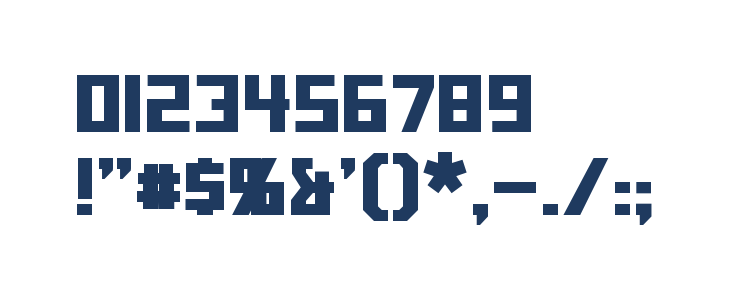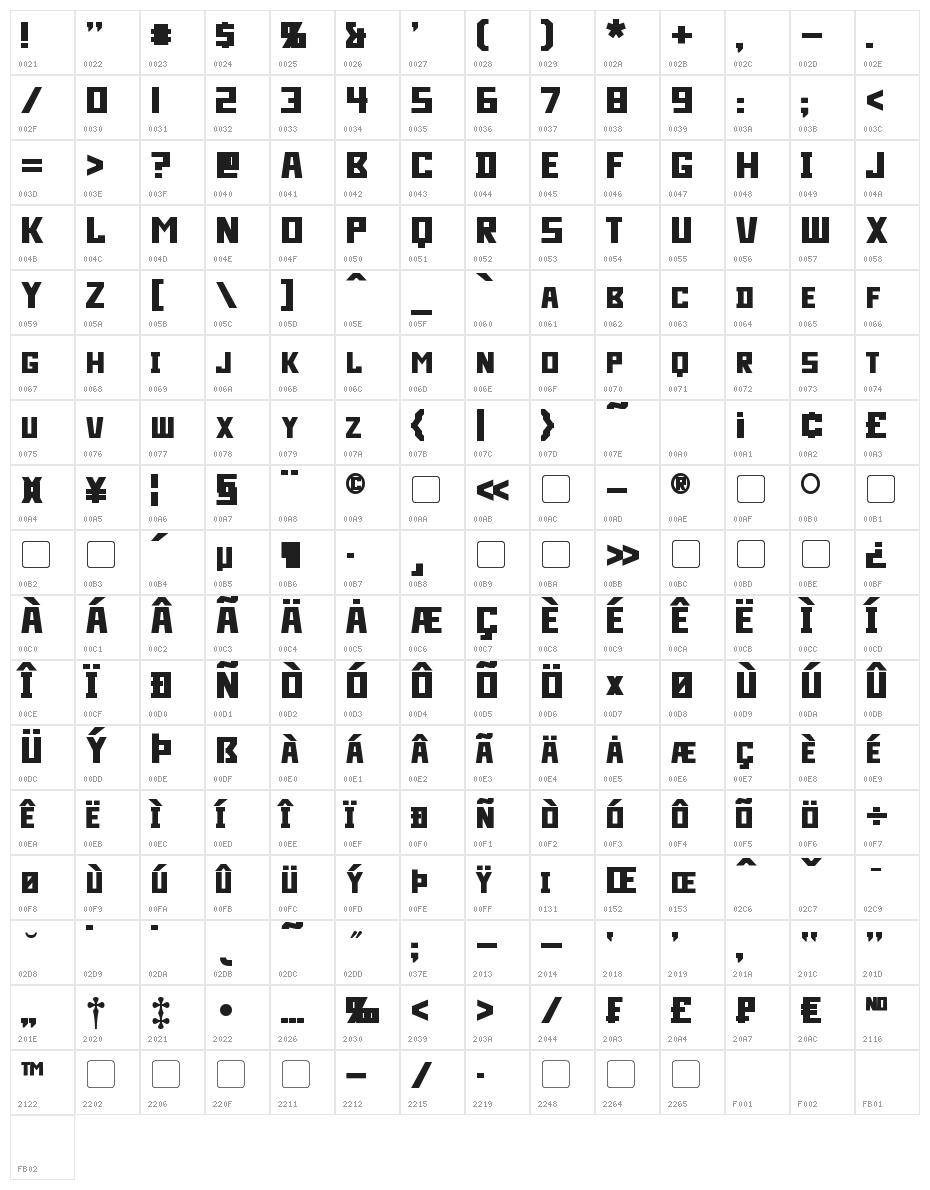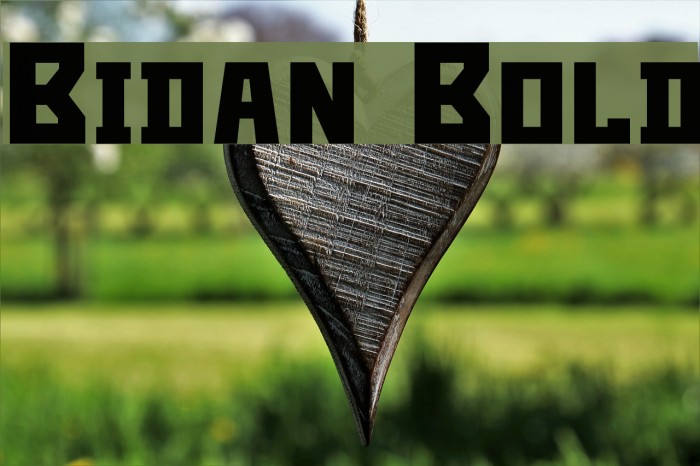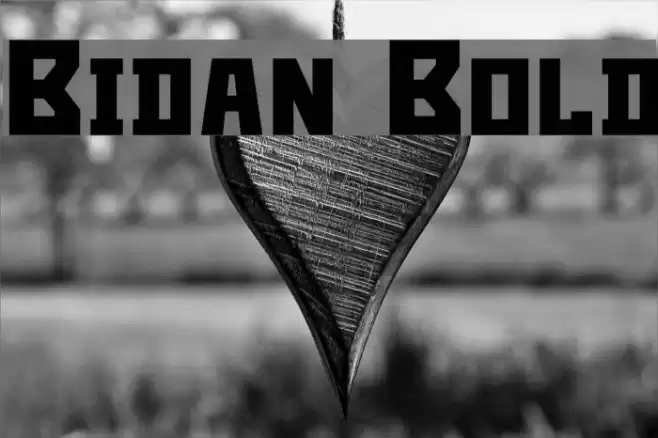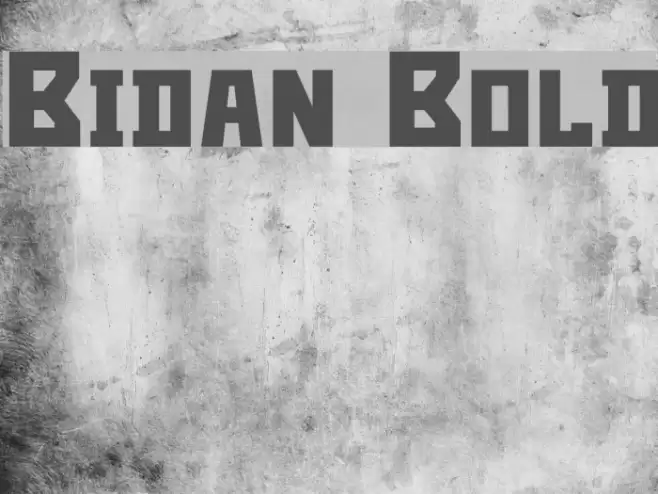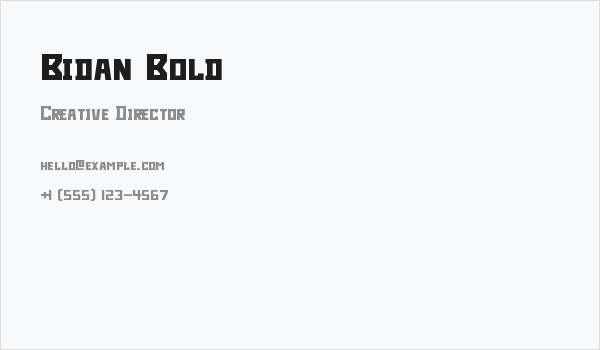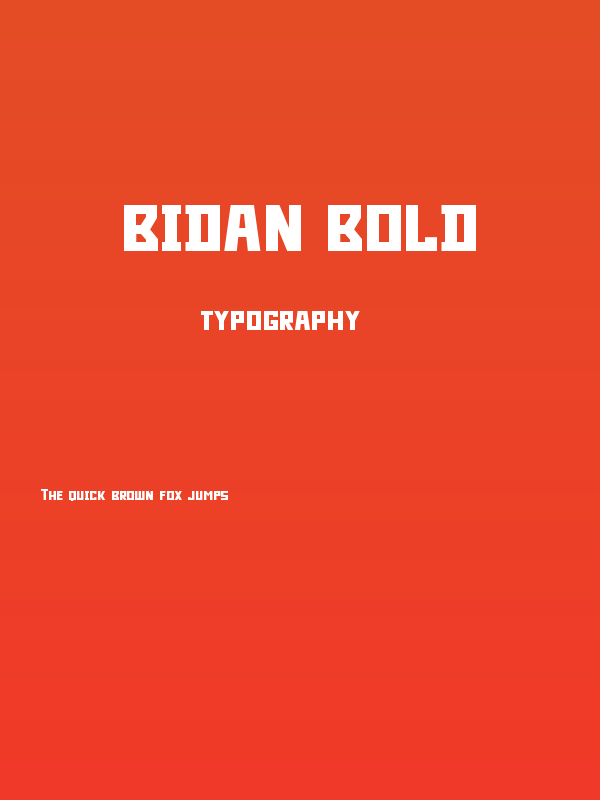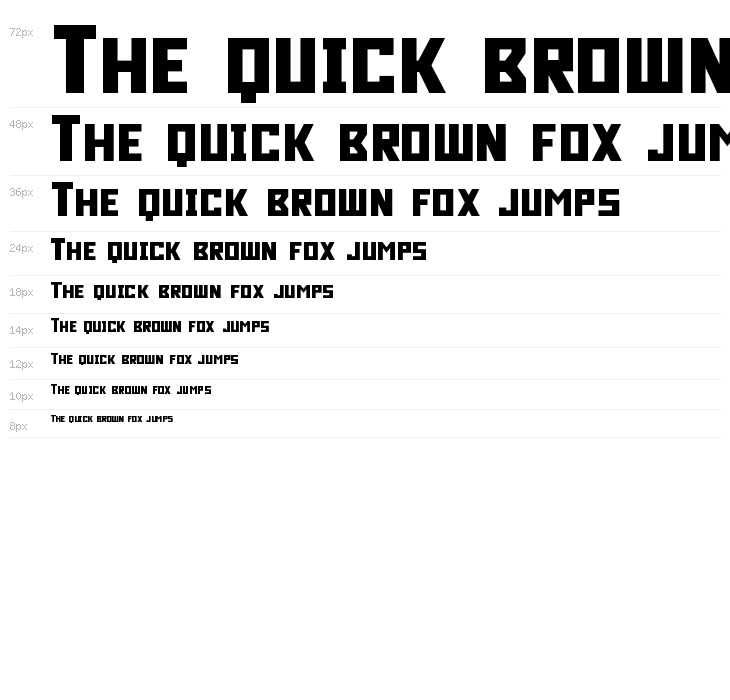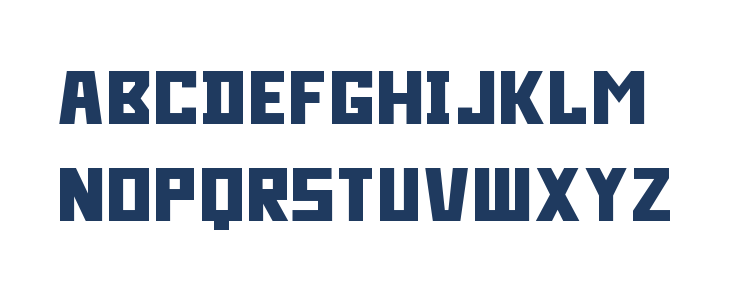
Bidan Bold Font
Bidan Bold Description
This font features a bold and geometric style with strong, angular lines and a blocky appearance. The characters are uniformly thick, giving it a robust and impactful presence. The uppercase and lowercase letters maintain a consistent height, contributing to a cohesive look. The numbers and special characters are designed with the same boldness, ensuring readability and uniformity across all elements. This font's design is reminiscent of industrial or futuristic aesthetics, making it suitable for projects that require a strong visual impact.
| Proposed Projects | Ideal for posters, headlines, branding, and any design needing a bold, impactful statement. |